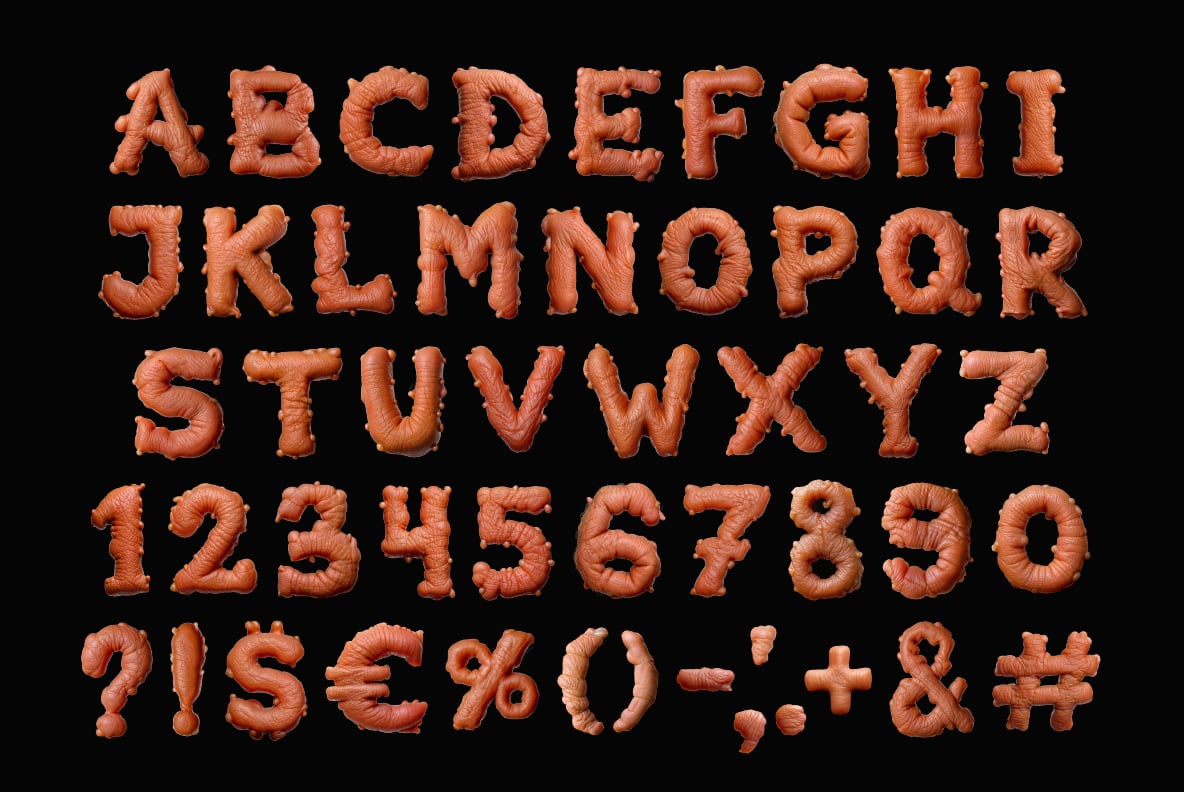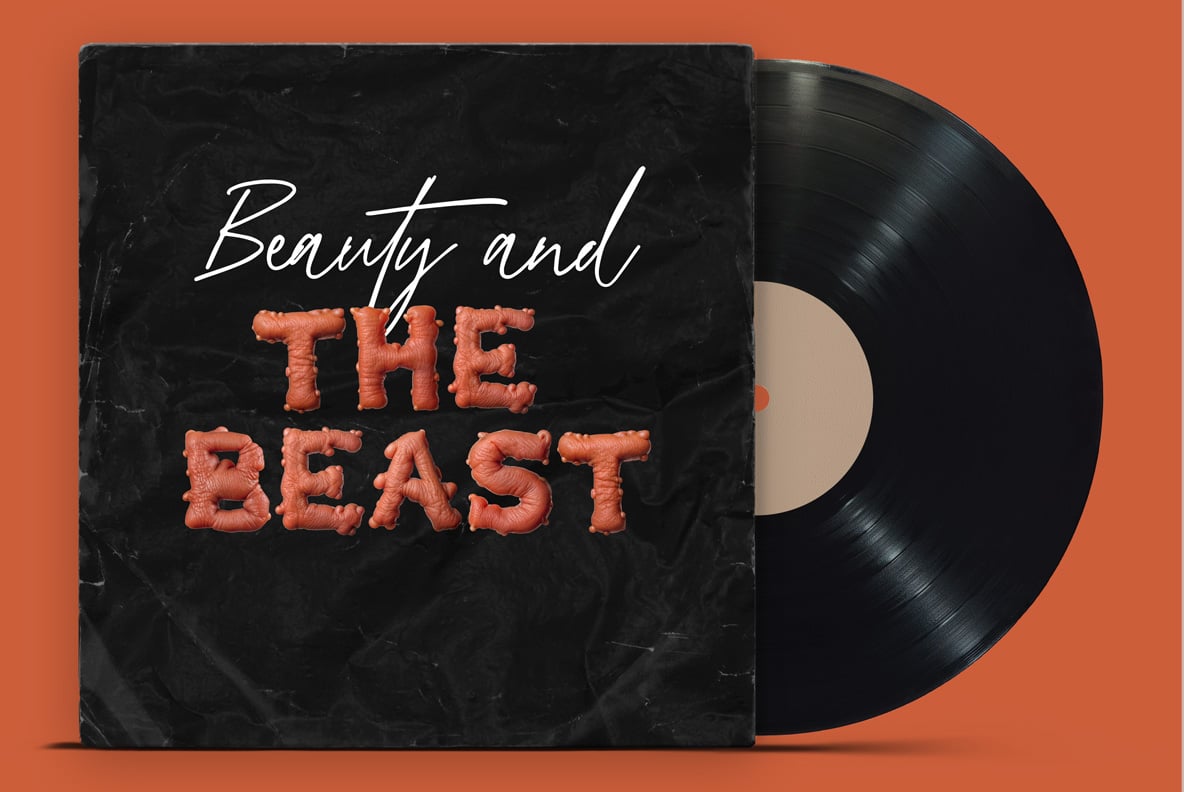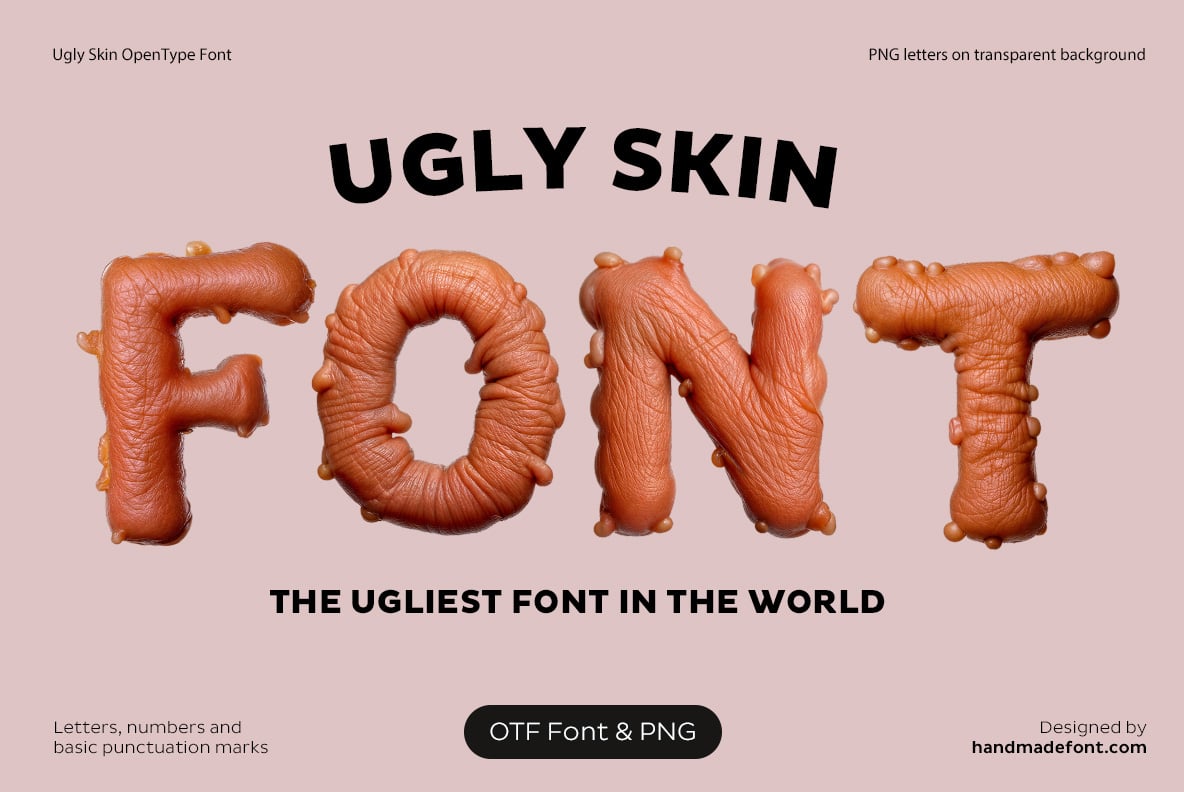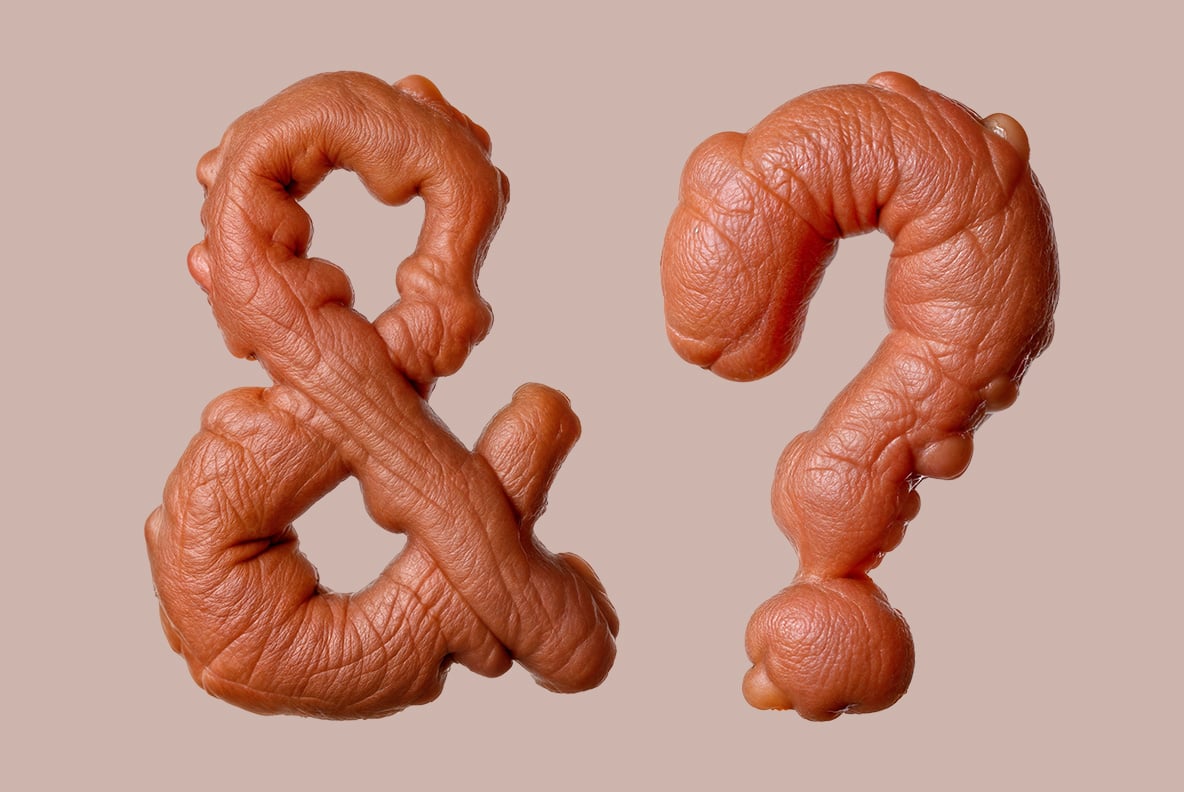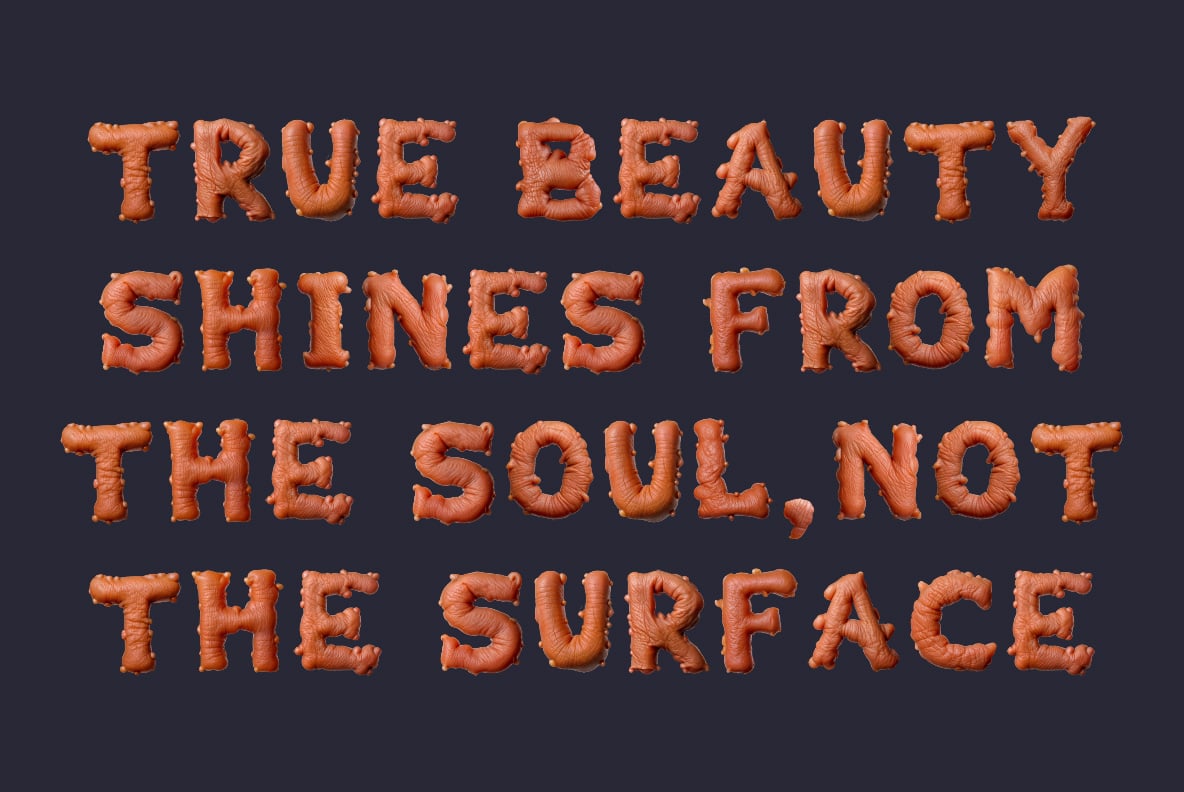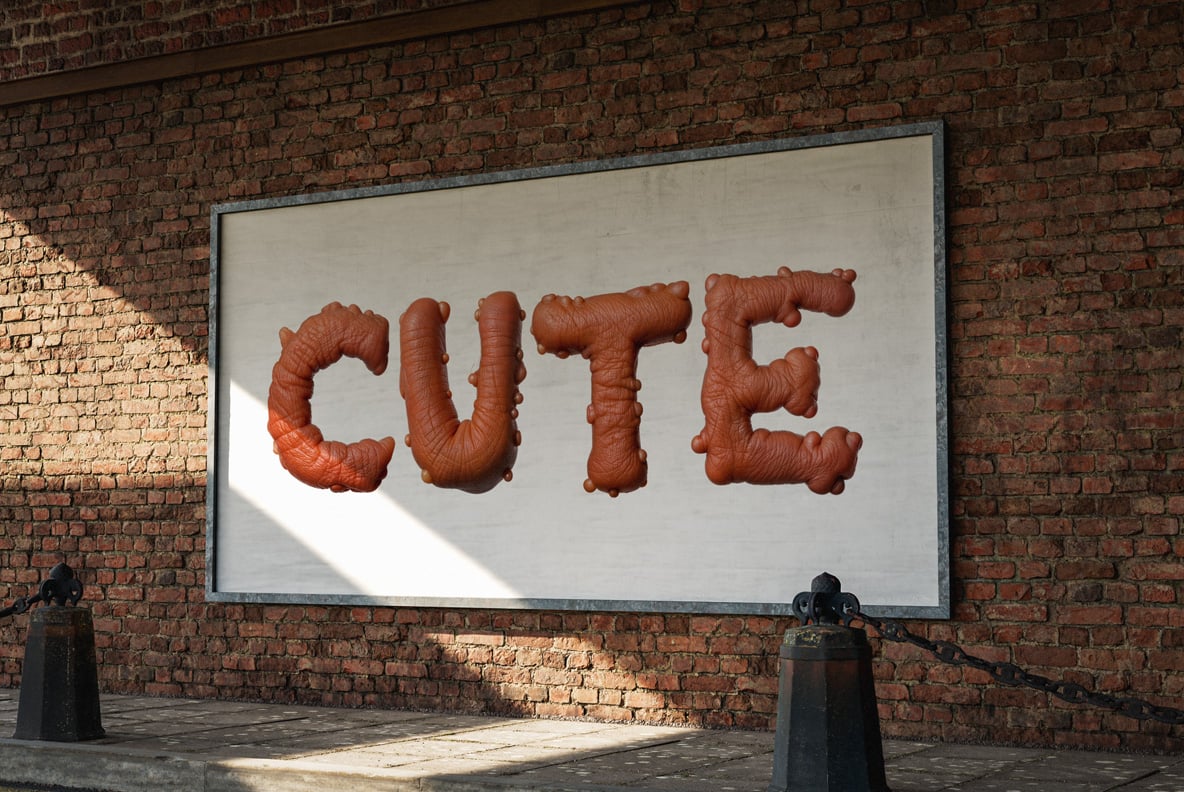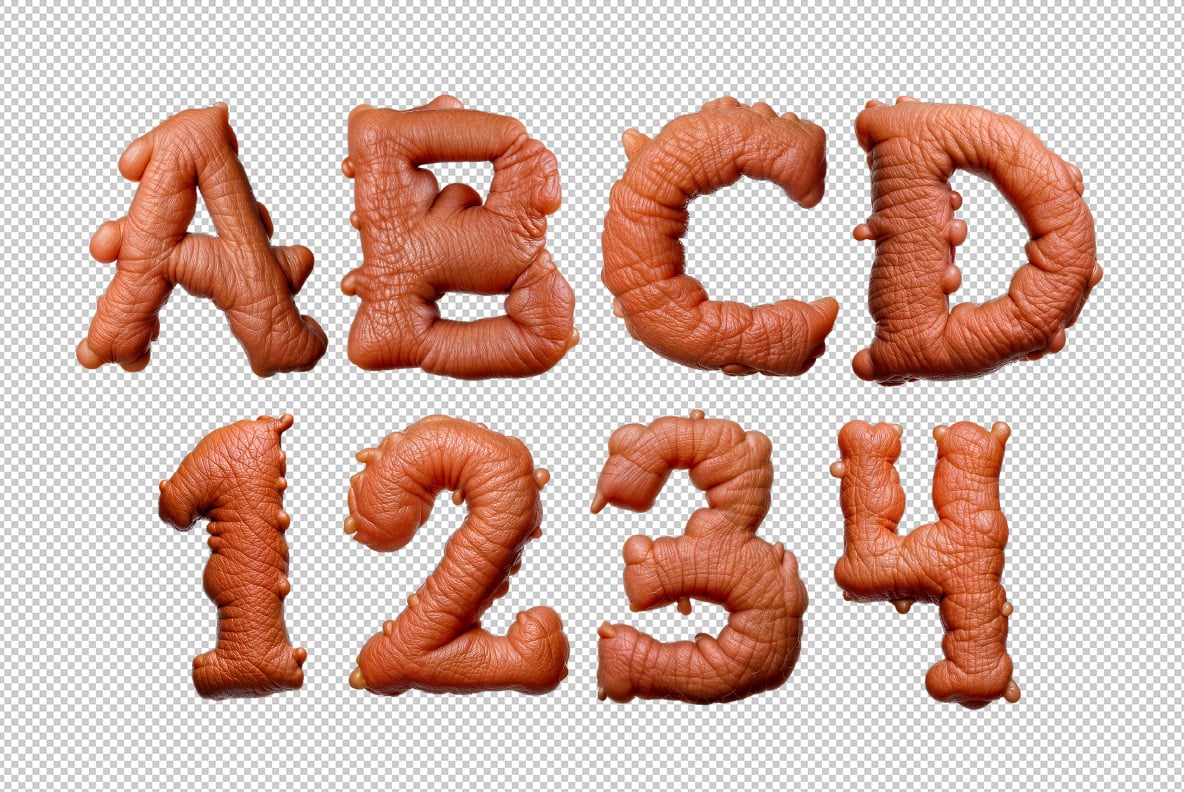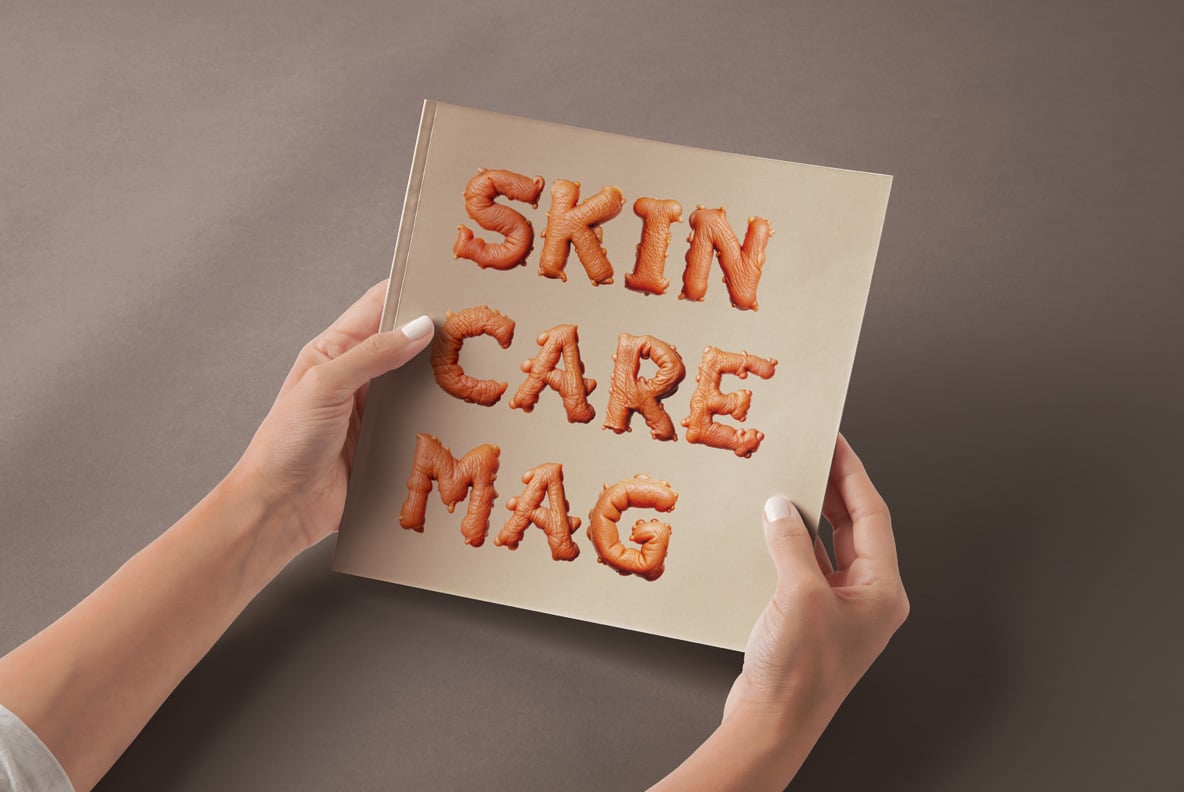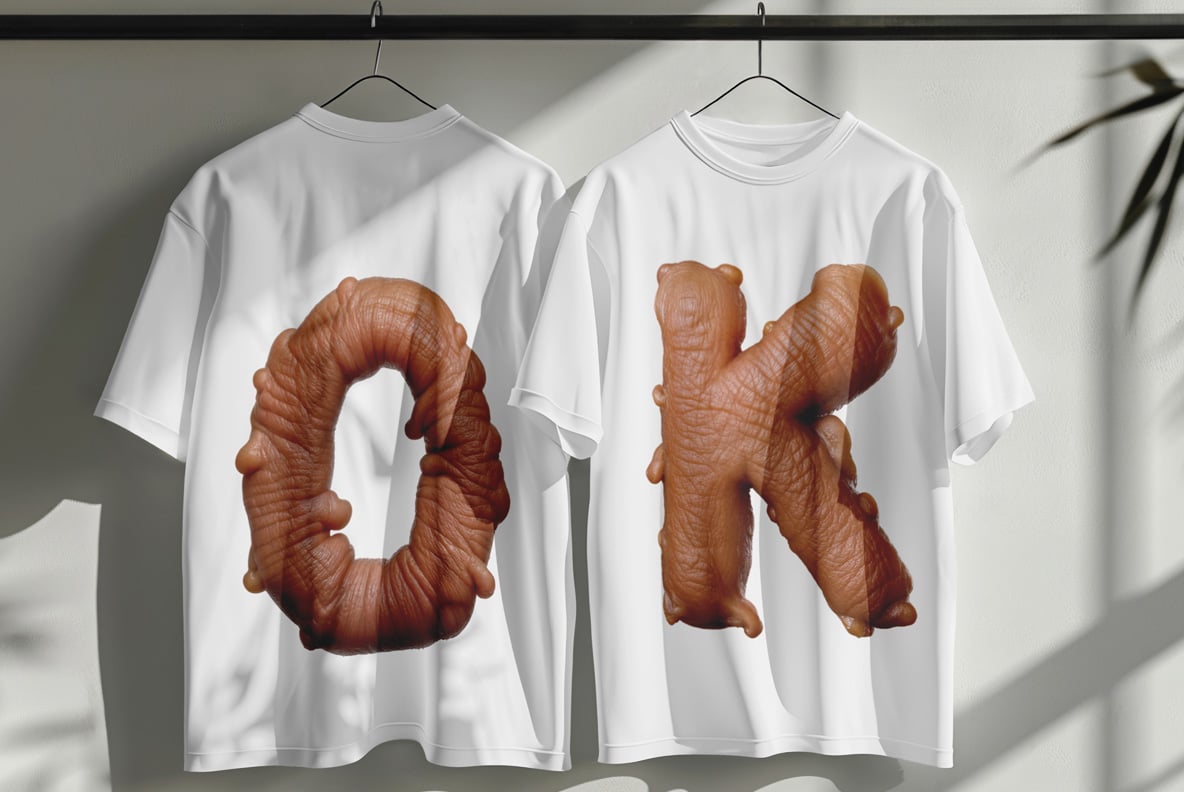
Ugly Skin Font
Skin takes center stage in the Ugly Skin Font, a bold and unconventional typographic creation. Each letter is meticulously crafted to mimic the textures of human skin, complete with wrinkles, blemishes, acne, scars, uneven tones, and redness. This skin-inspired font transforms typography into a visceral art form, capturing the imperfections and beauty of natural skin. The lifelike details—dark spots, folds, and fleshy tones—add a surreal, almost unsettling dimension to the design. Perfect for bold, avant-garde projects, the Ugly Skin Font challenges traditional aesthetics and celebrates the raw, organic, and unapologetically imperfect nature of human skin.